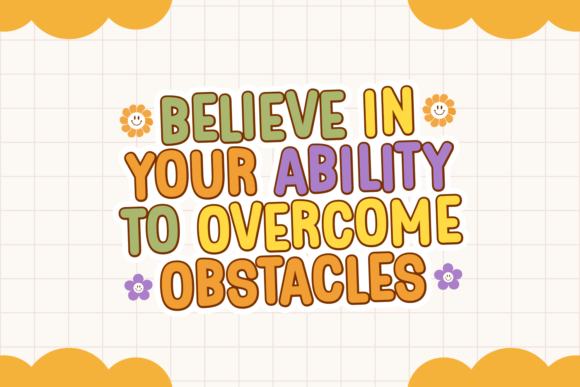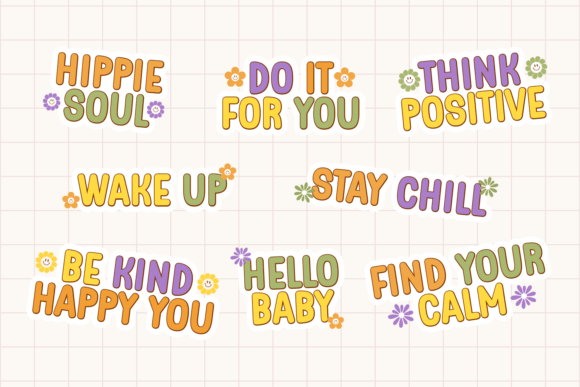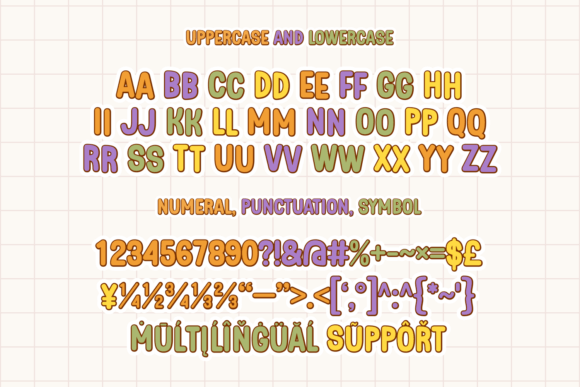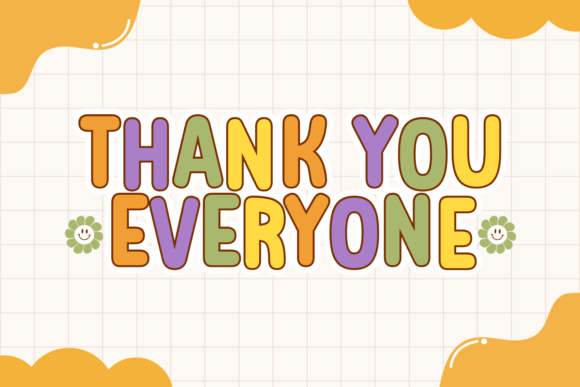
Introduction to Friendly Morning Font
Imagine you’re brainstorming ideas for a new project, and as you scroll through your design resources, you stumble upon the perfect font to set the tone – the Friendly Morning Font. It’s that moment when everything clicks, and your creative juices start flowing. The Friendly Morning Font is more than just a font; it’s a key to unlocking the warmth and personality of your design.
As a designer, you know how crucial the right font can be in elevating your creative project. With Friendly Morning Font, you get a high-quality, free download that’s perfect for adding a touch of whimsy to your designs. Whether you’re working on a social media graphic, an invitation, or a poster, this font’s friendly style is sure to bring a smile to your face and your audience’s.
Key Features of Friendly Morning Font
- High-quality design resource perfect for creative projects, offering a unique and friendly touch.
- Includes a transparent background option, allowing for seamless integration with various design elements.
- Features a clean and modern design, with a size of 512×512 pixels and a resolution of 300 DPI.
- Unique characteristics include a friendly and approachable feel, making it ideal for branding and marketing materials.
- Perfect for designers and artists looking for a high-quality, free design resource to elevate their creative projects.
Honest Review: Friendly Morning Font
As a designer, I’m always on the lookout for high-quality fonts that can elevate my creative projects. I recently had the chance to try out the Friendly Morning Font, and I’m excited to share my honest review.
Here are the things that I loved about Friendly Morning Font:
- ✨ High-quality design: The font is well-crafted and visually appealing, making it perfect for a variety of creative projects.
- ✨ Transparent background: The font has a transparent background, which gives designers more flexibility when it comes to customizing their designs.
- ⚠️ Limited character set: The font only includes a limited character set, which may not be suitable for all design projects.
- ⚠️ Not suitable for small text: Due to its rounded design, the font may not be the best choice for small text or titles.
Overall, I’m impressed with Friendly Morning Font. While it may not be perfect for every design project, it’s a great resource for designers who need a high-quality, free font for their creative projects.
The Friendly Morning Font is a high-quality design resource perfect for your next creative project. This beautiful font features a transparent background and is available for free download.
Use Friendly Morning Font to add a touch of elegance to your designs. You can use it for headings, subheadings, or even body text.
Experiment with different font sizes and colors to create a visually appealing design.
Friendly Morning Font is perfect for:
1. Creating invitations and greeting cards.
2. Designing social media graphics and flyers.
3. Adding a touch of elegance to your website or blog.
Alternatives to Friendly Morning Font
When to use: Lato is perfect for websites, mobile apps, and digital products that need a professional and modern feel.
Comparison to Friendly Morning Font: Lato is more formal and elegant compared to the Friendly Morning Font, making it suitable for corporate and business projects.
Is the Friendly Morning Font suitable for high-resolution printing?
Yes, the Friendly Morning Font is designed to be high-resolution and suitable for printing. The font includes detailed vector graphics and is optimized for use in high-resolution designs. If you’re planning to print your design at a high resolution, we recommend using the SVG format, which is ideal for vector graphics.